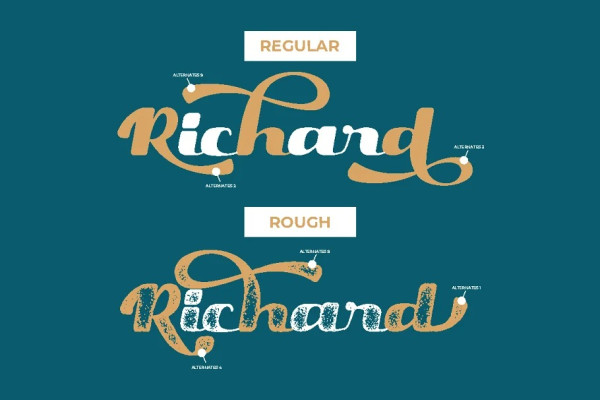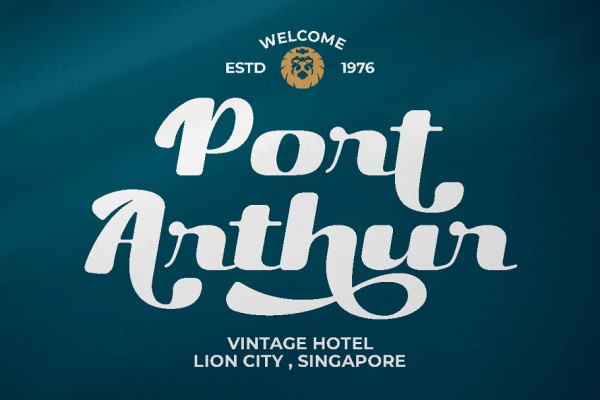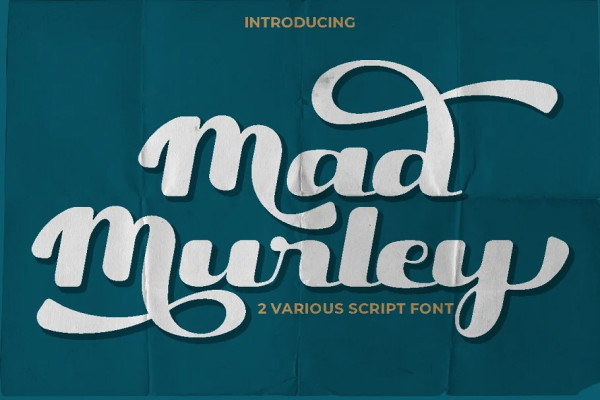
Mad Murley Font
Mad Murley Font, a bold script font that exudes confidence and personality. This font is perfect for anyone looking for a unique and eye-catching typeface to make their designs stand out. The inspiration behind this font came from the desire to create a script font that was both modern and classic, making it versatile for a variety of projects.
This is perfect for branding, packaging, logo design, album covers, posters, and social media graphics. With its bold and unique style, this font is sure to make your designs pop. It is also ideal for projects that require a touch of elegance and sophistication, while still maintaining a playful and fun vibe.
This font comes with a range of features that make it versatile and easy to use. It includes both uppercase and lowercase letters, as well as opentype alternates and ligatures, making it perfect for customizing your designs. In addition, it supports a wide range of languages, making it accessible to a global audience.
If you’re looking for a font that will make your designs stand out, it is the perfect choice. Its bold and unique style, combined with its versatility and range of features, make it an ideal font for a wide variety of projects.
In summary, Mad Murley is a bold script font with a modern and classic vibe, perfect for branding, packaging, logo design, album covers, posters, and social media graphics. It includes features such as uppercase and lowercase letters, opentype alternates and ligatures, and multilanguage support. The font package includes three different formats: OTF, TTF, and WOFF. Try Mad Murley today and take your designs to the next level!